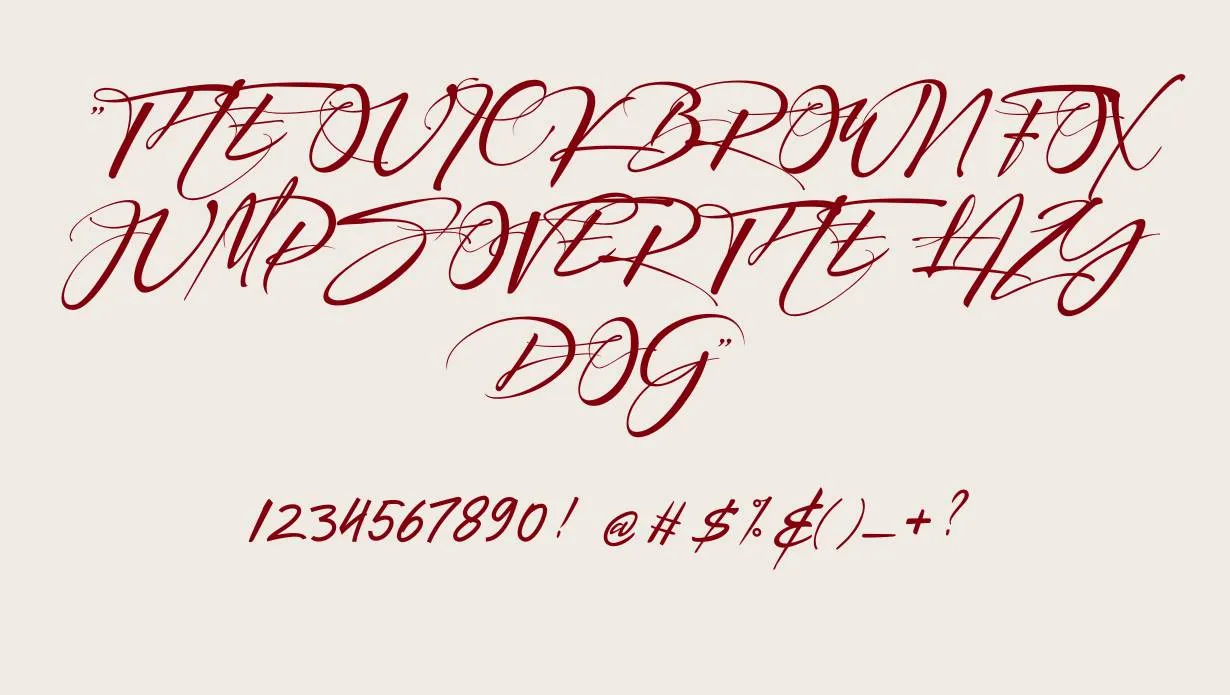
Signatrue Elegant Font is a graceful and flowing script typeface, often chosen for upscale branding, wedding invitations, and designs requiring a touch of sophistication.
Signatrue Elegant Font Family